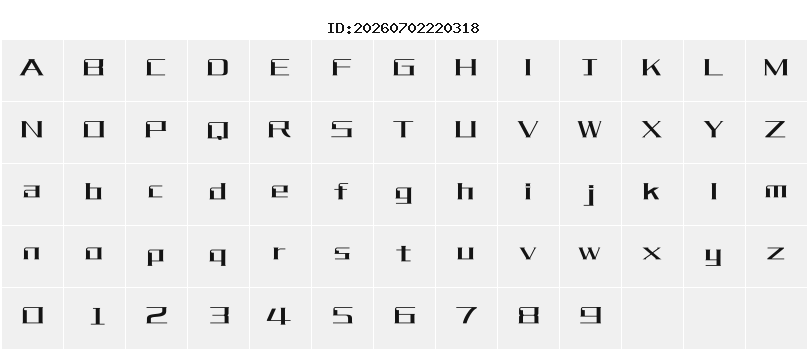
149-上首奶酪体 Preview
• Font Name: 149-上首奶酪体
• Font ID: 149-SSNaiLaoTi:Version 6.00
• Full Font Name: 149-上首奶酪体
• Version: Version 6.00 June 25, 2022
• PostScript Name: 149-SSNaiLaoTi
• Character Count: 7569
• Manufacturer: 上首造字
About 149-上首奶酪体.ttf
149-上首奶酪体.ttf is a modern, elegant sans-serif font designed for ultimate readability and visual harmony. Perfect for branding, headlines, web design, and print materials.